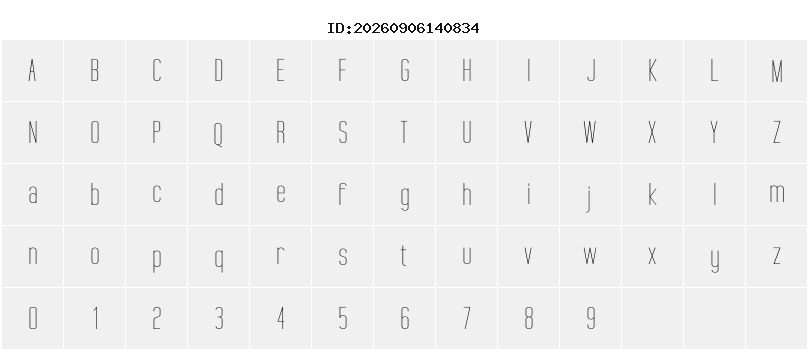
• Font Name: Tall Films Expanded
• Manufacturer: Graham Meade
Tall Films Expanded.ttf is a modern, elegant sans-serif font designed for ultimate readability and visual harmony. Perfect for branding, headlines, web design, and print materials.